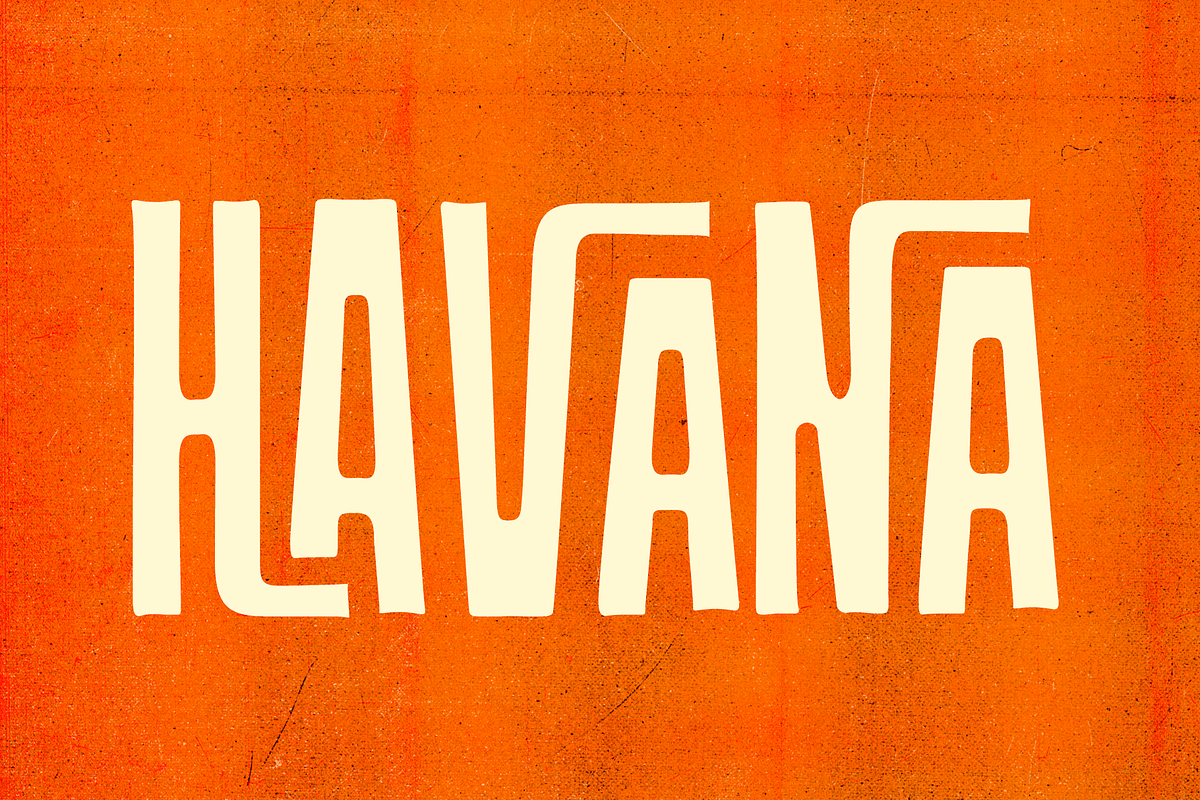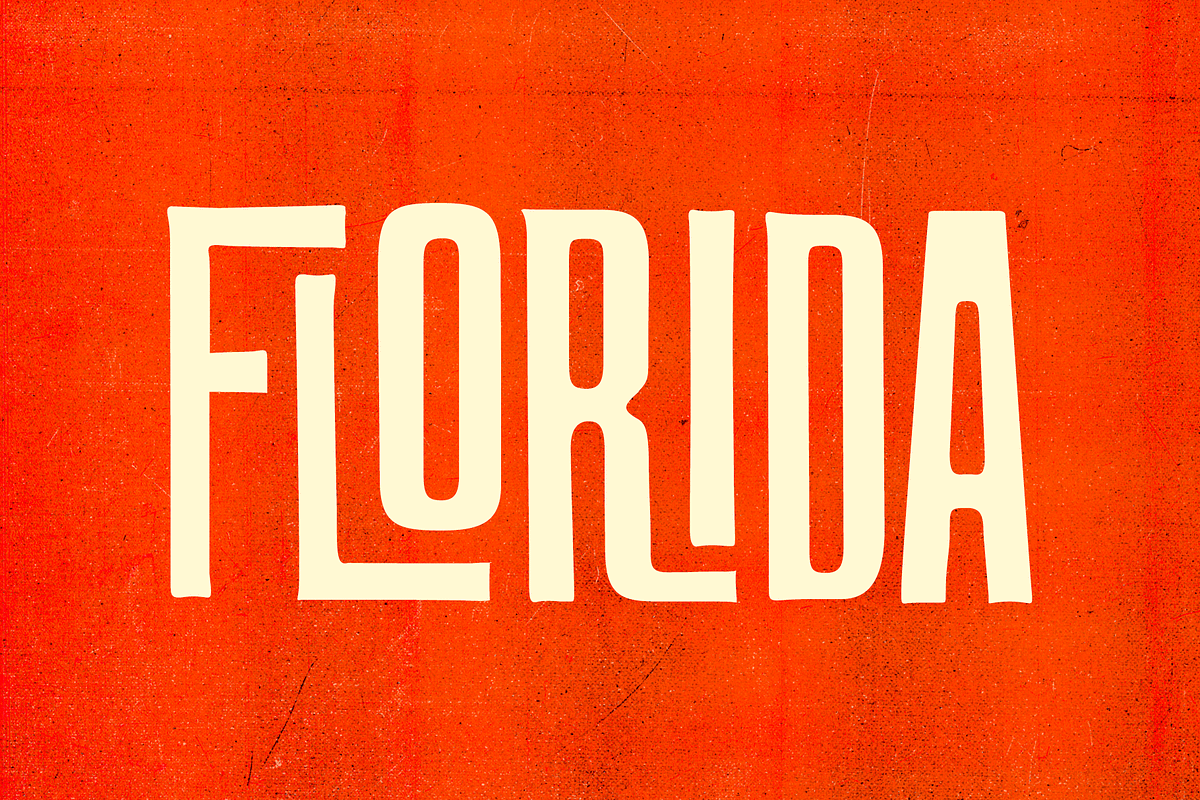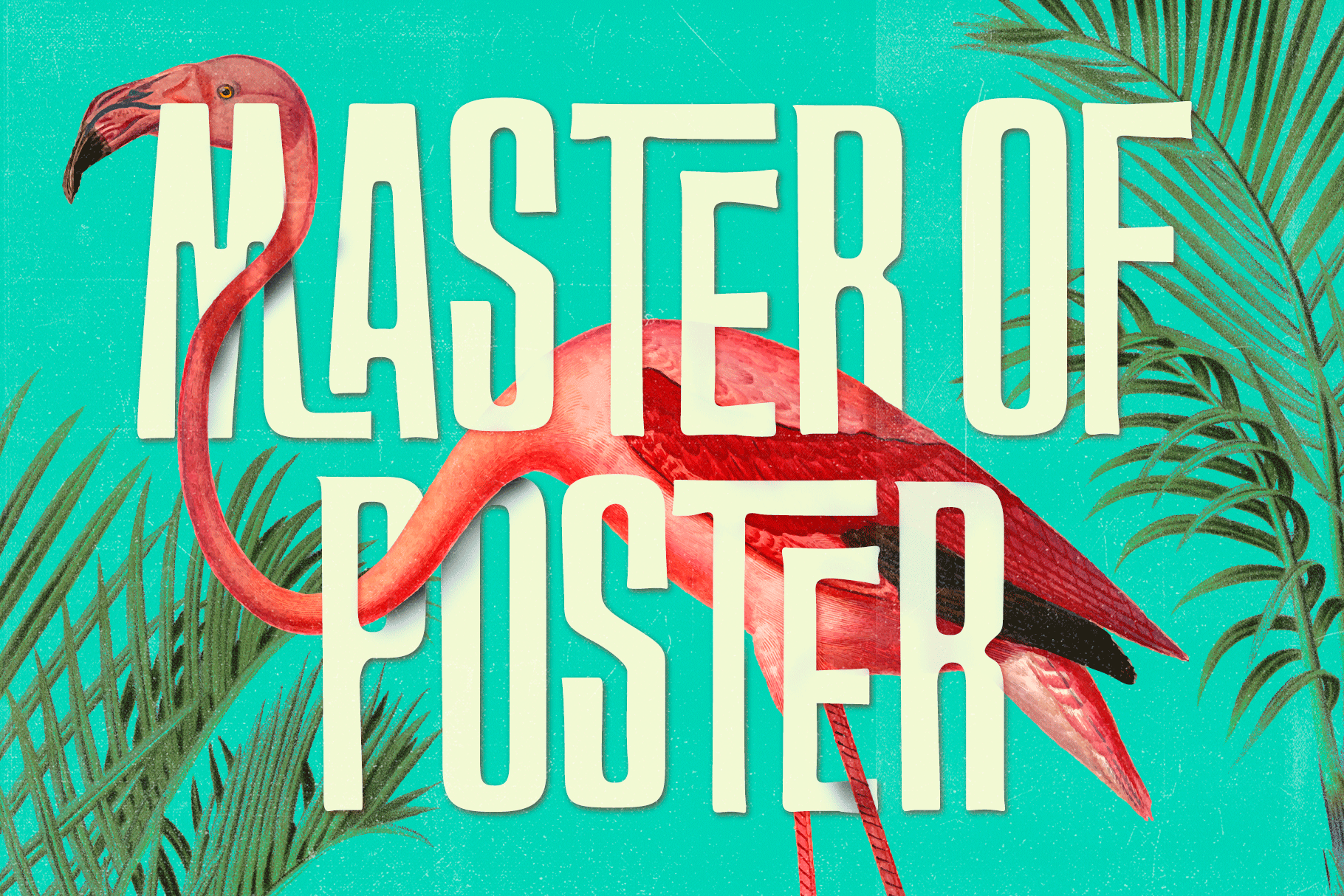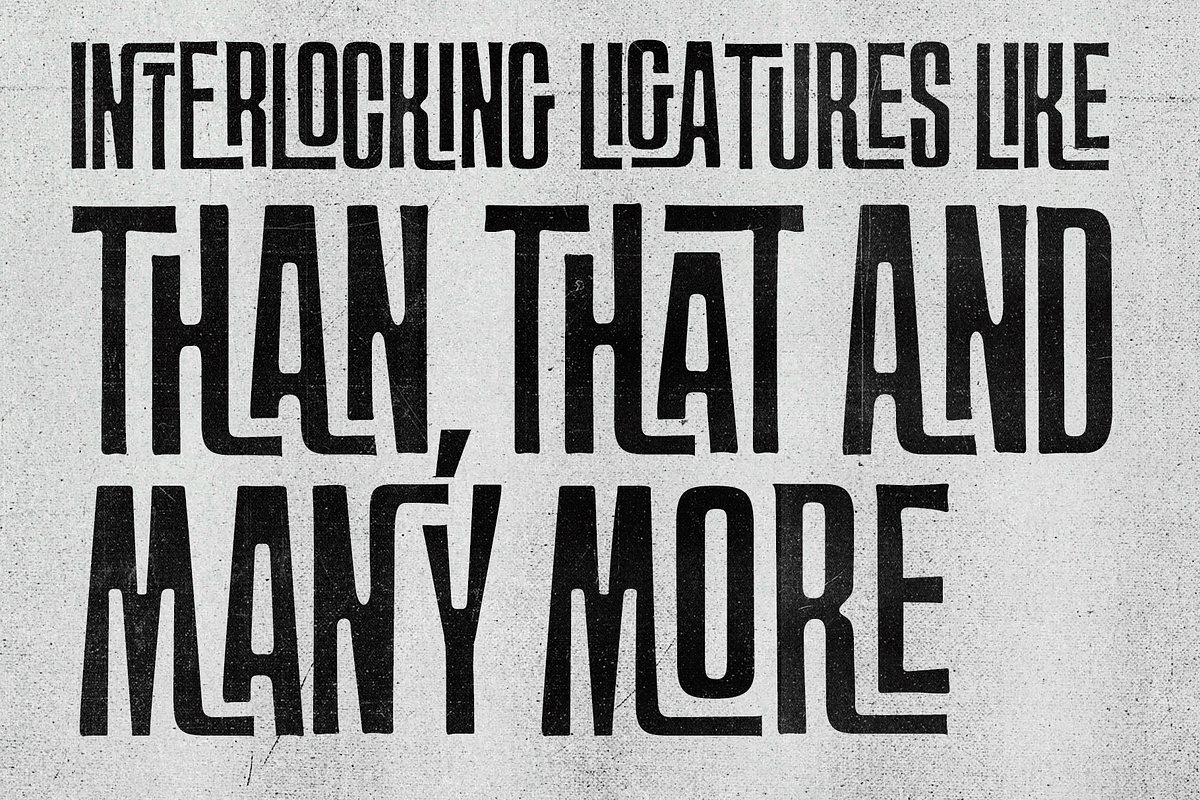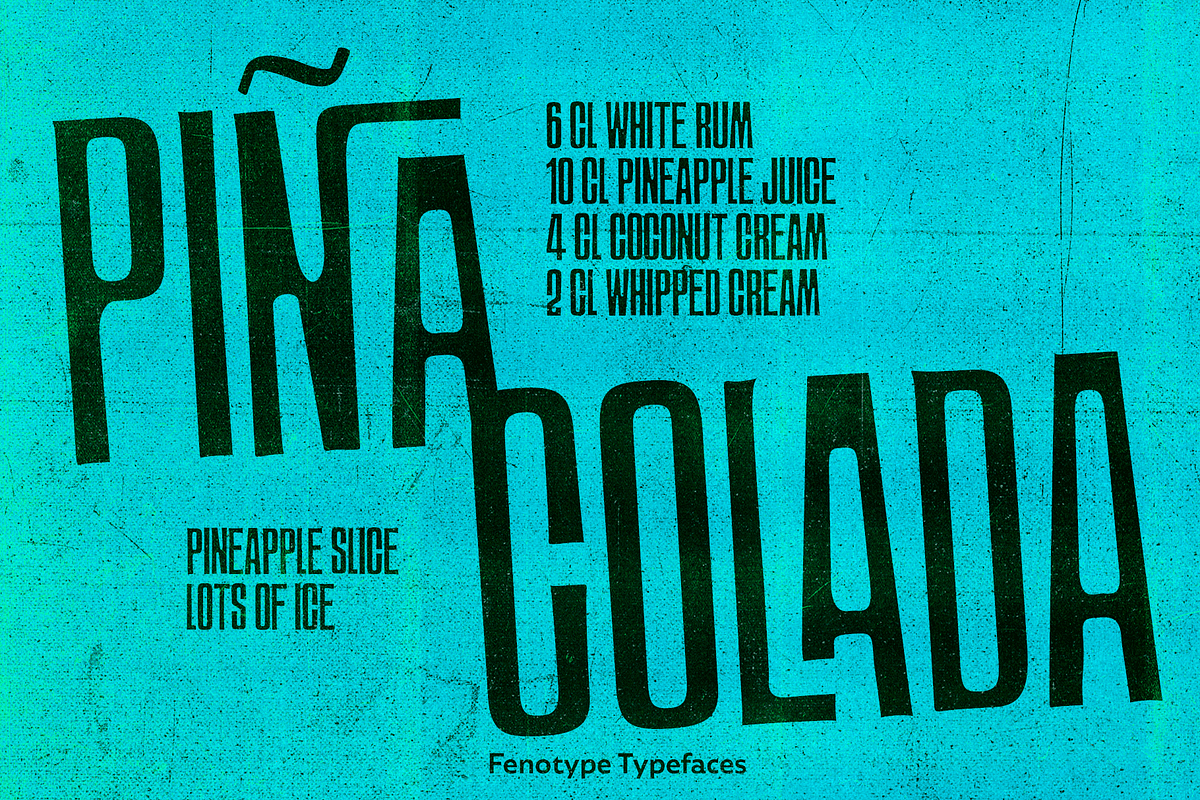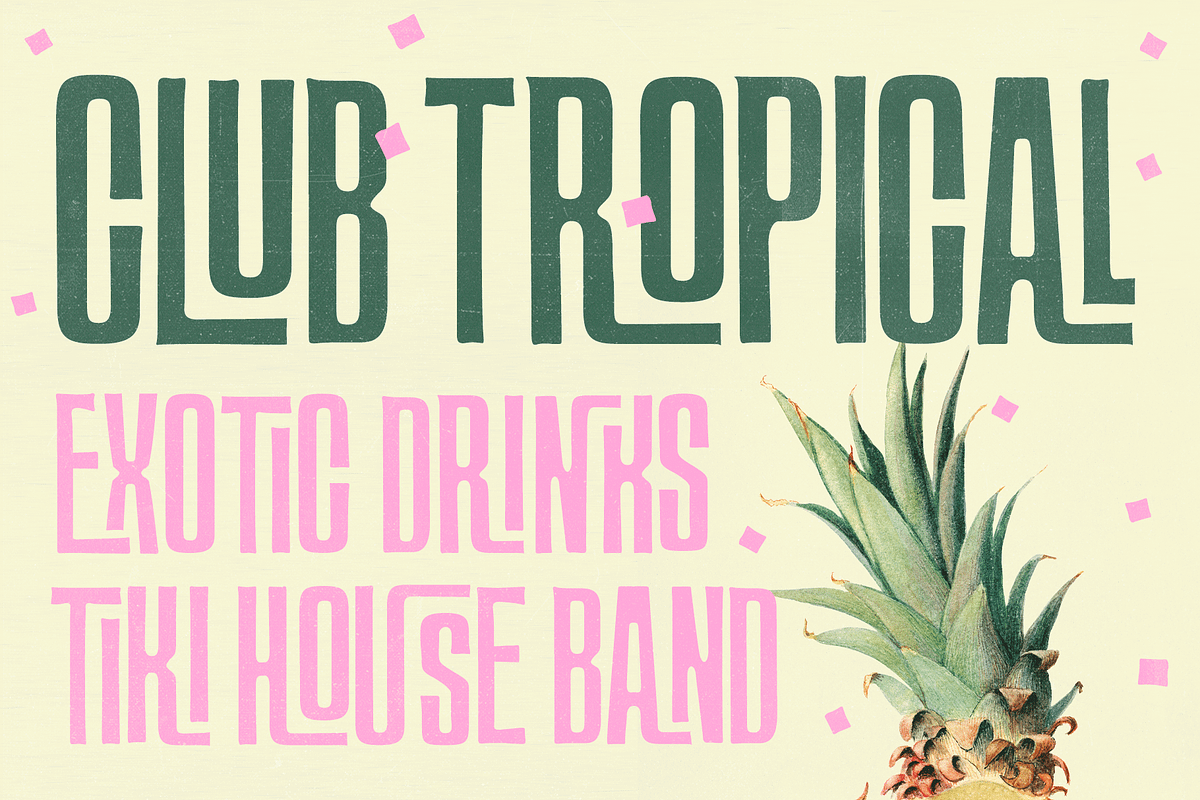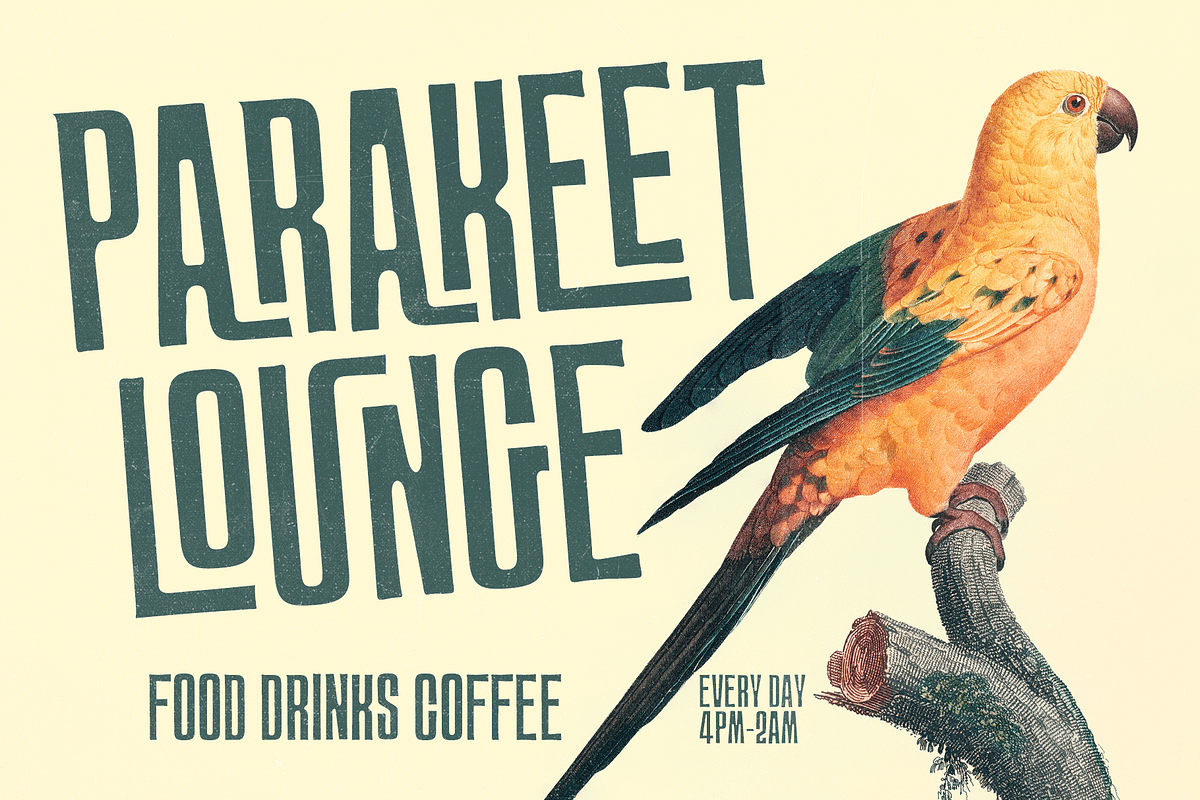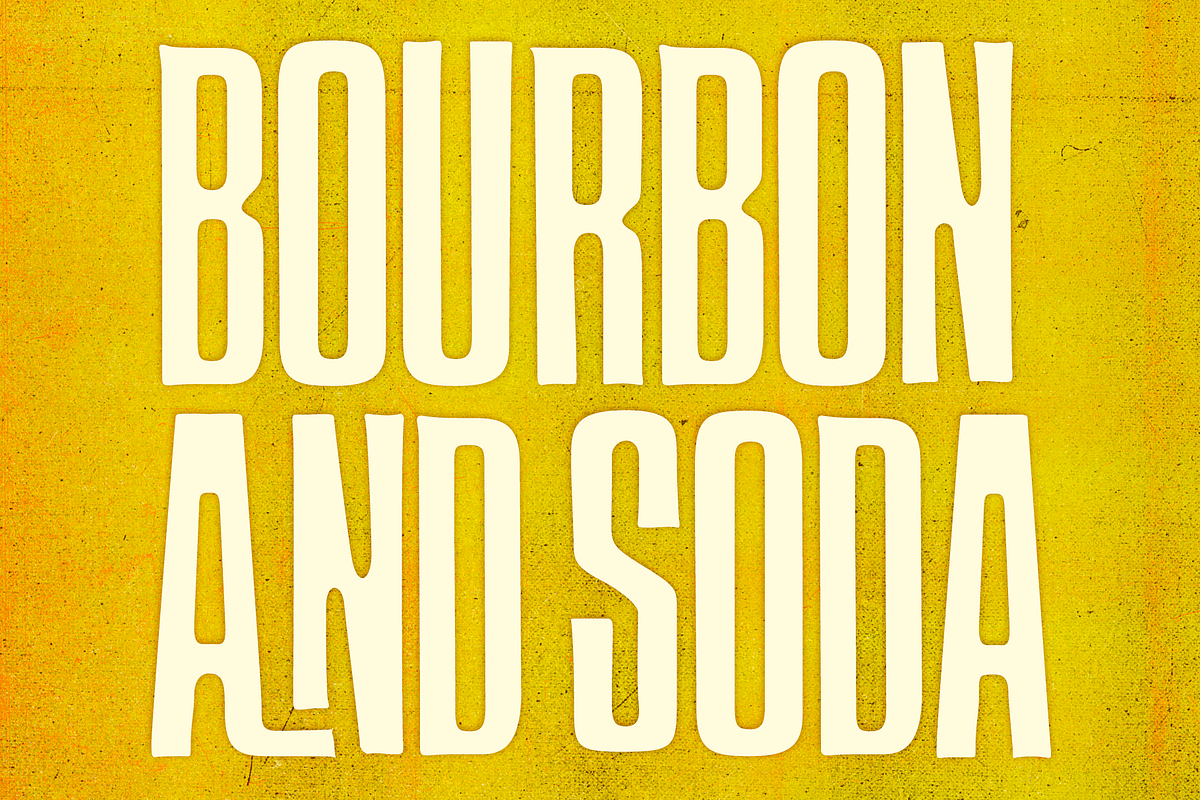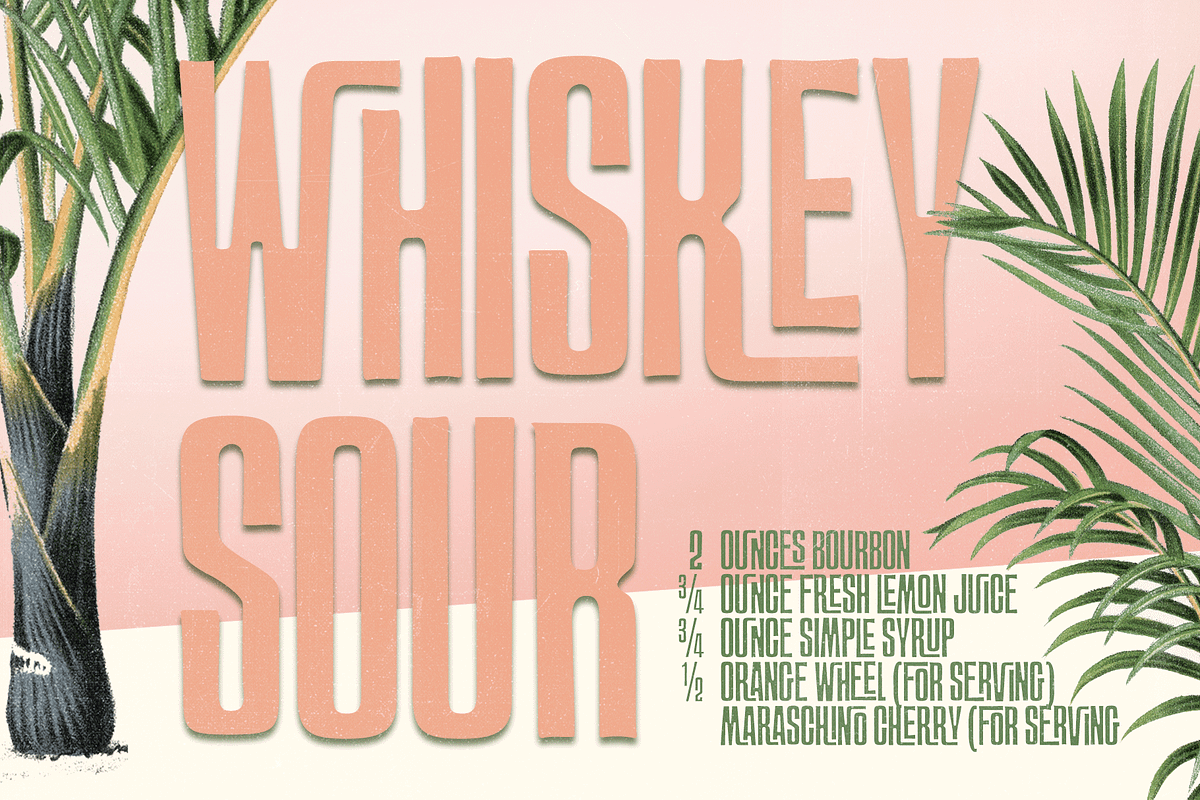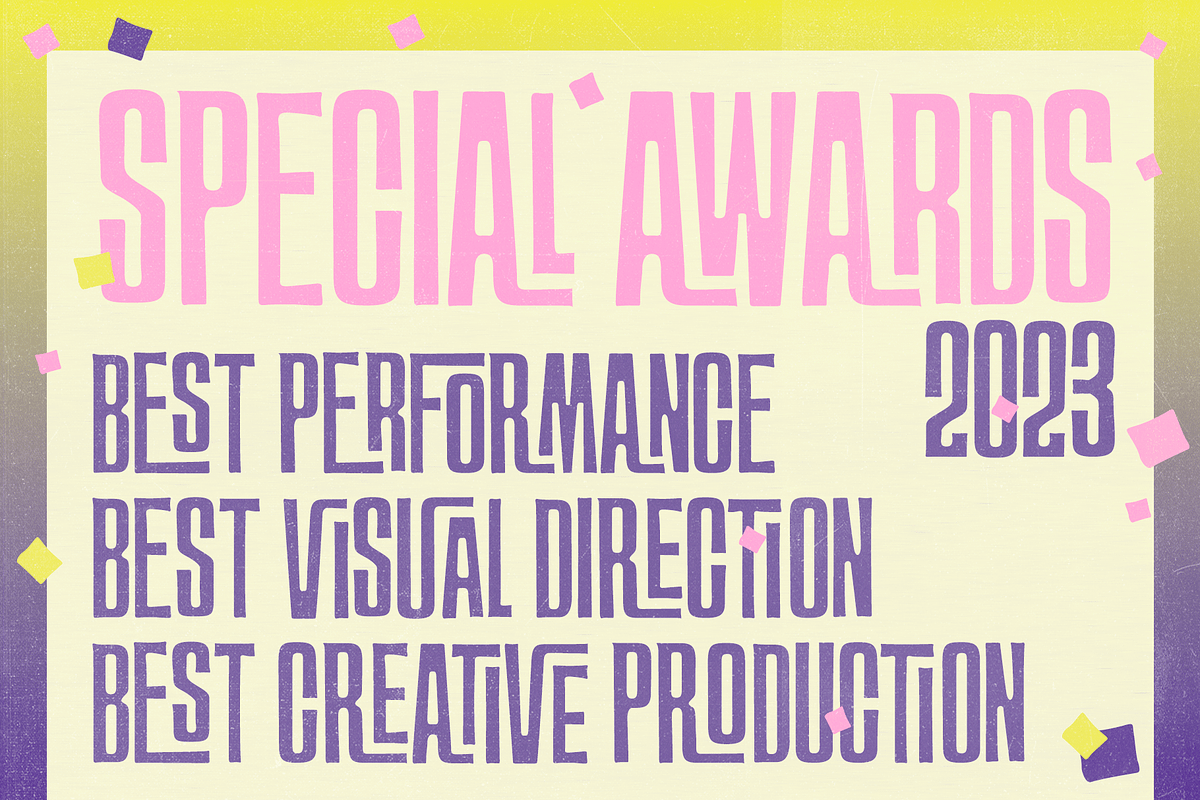
Master of Poster Tiki Font
Master of Poster is a hand drawn, interlocking display typeface with tiki-vibes. Master of Poster is ultra condensed and comes in three weights - light, regular & bold. Master of Poster is fun and fast typeface for creating posters and other display use where typeface takes a bigger role.
Each style is equipped with over 450 interlocking ligatures. Ligatures are automatically on when you type in CAPS.